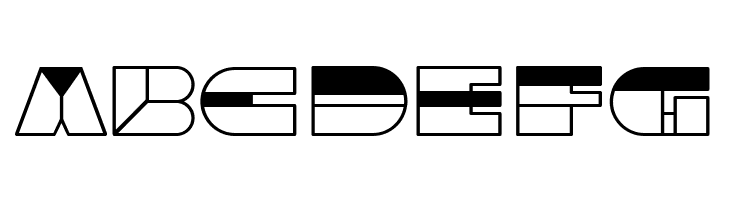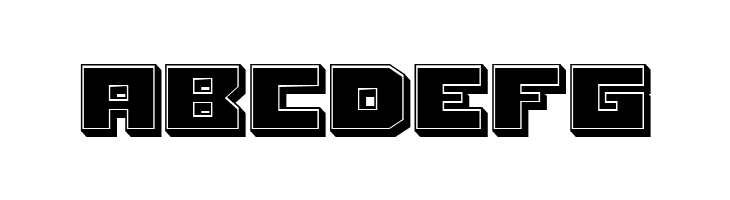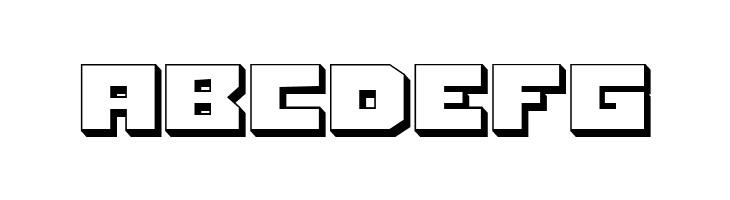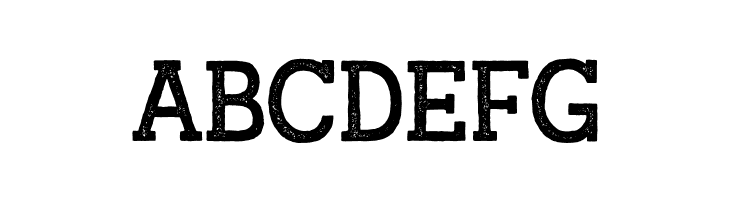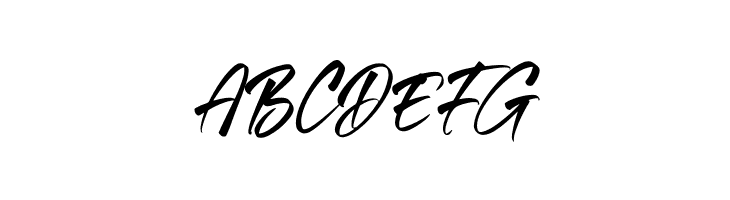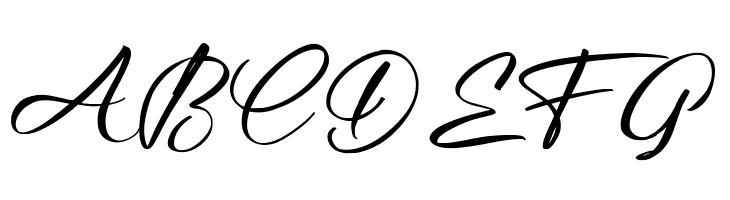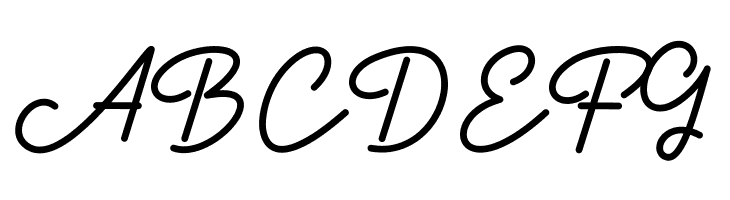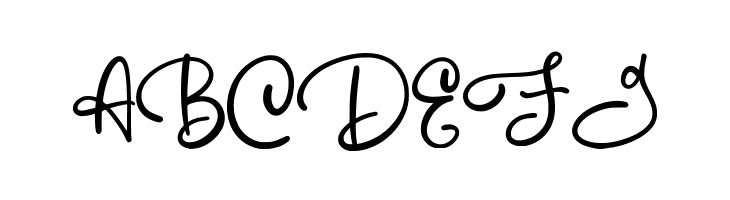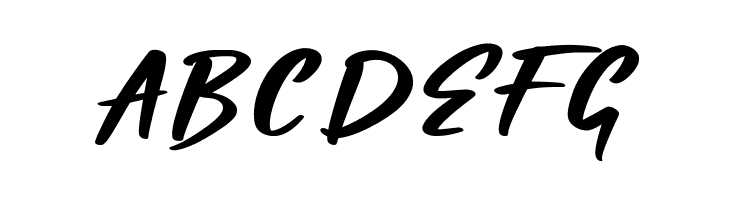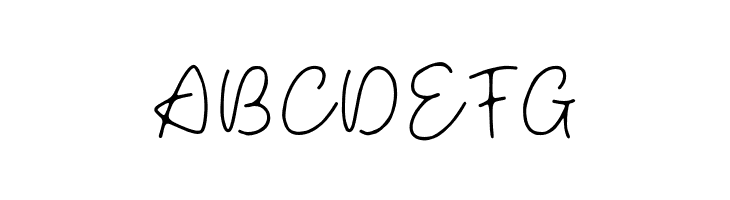
A playful and elegant handwritten script font with flowing curves.
A bold, distressed sans-serif font with a vintage, stamped look.
A bold slab serif font with strong, block-like serifs and a modern yet timeless appeal.
A decorative font with intricate line patterns resembling topographic maps.
A rugged, textured slab serif font with a handcrafted feel.
A rugged, textured slab serif font with a vintage, handcrafted feel.
A rugged, textured slab serif font with a vintage, industrial feel.
A whimsical font featuring illustrated Australian animals as characters.
A graceful cursive script font with elegant, flowing strokes.
A modern serif font with elegant contrast and sharp serifs.
A bold, geometric font with hollow interiors for a modern, three-dimensional look.
Bold, geometric font with a three-dimensional effect and strong visual impact.
A decorative cursive font with elegant loops and consistent stroke width.
A bold, handwritten-style font with fluid, dynamic strokes.
An elegant, cursive script font with a flowing, calligraphic style.
A stylish and elegant script typeface with graceful curves and fluid connections.
A bold, geometric font with high contrast and a futuristic style.
A dynamic and elegant script font with flowing, cursive letterforms.
A playful, whimsical script font with fluid, interconnected letters.
A flowing, cursive script font with interconnected letters and artistic flair.
An ornate and decorative font with vintage calligraphic elements.
A dynamic, cursive font with fluid, interconnected strokes.
A flowing script font with elegant, cursive strokes and a classic calligraphic style.
A vintage, textured script font with a hand-painted feel.
Expressive handwritten script font.
Bold, textured, handwritten sans-serif font.
( Fonts by Dilbadil - Abdillah Abdi - Personal-use only. For commercial use please contact owner. )
A flowing, cursive script font with elegant, connected characters.
A playful, casual handwritten font with fluid strokes and a personal touch.
A flowing, cursive font with elegant, interconnected strokes and a modern calligraphic style.
A playful, handwritten font with smooth, slightly slanted strokes.
An elegant script font with high contrast and flowing cursive style.
A classic calligraphic font with elegant, flowing strokes and refined serifs.